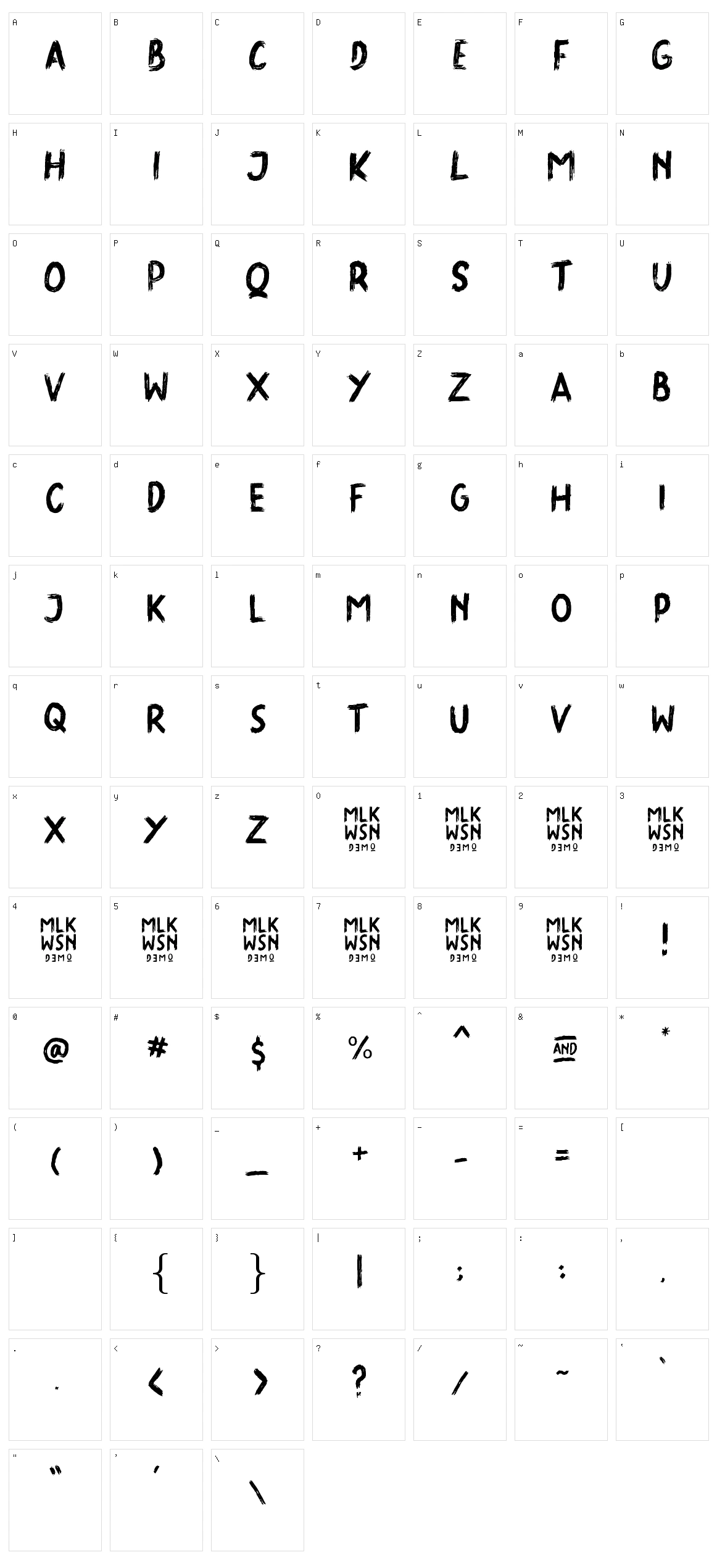
The free font Unknown Secret is carefully designed by mlkwsn, showcasing a thoughtful balance of creativity and usability and falls under the Script font style. When you download the ZIP file, it contains only 556.95 KB of font files, making it lightweight and quick to download. Please review the license details below to understand permitted usage and distribution rights. If license information is not available, we recommend using this font for personal projects only or contacting the author directly for commercial usage permissions.